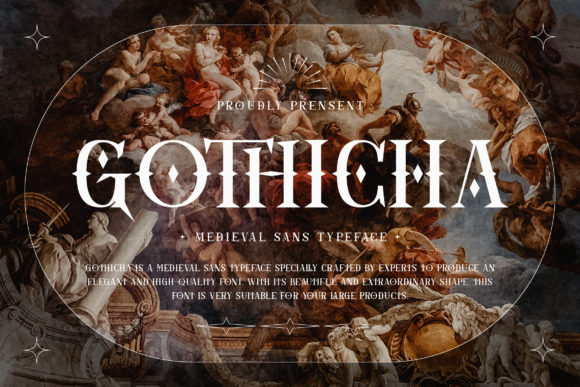
Introducing Gothicha, the best font for business flyers! Created by CreatypeStudio, this bold and victorian styled serif font is a game-changer for anyone looking to elevate their designs to the next level.
Gothicha's unique features are not limited to its stunning design, but also its PUA encoding which allows easy access to all glyphs and swashes. This makes it effortless to add intricate details and personalized touches to your favorite creations.
If you're looking to make a lasting impression on potential customers, Gothicha is the font for you. Its timeless and professional aesthetic is perfect for business flyers, brochures, and advertisements.
Not only will Gothicha capture the attention of your target audience, but it will also showcase your brand's creativity and attention to detail. Don't settle for a boring and forgettable design. With Gothicha, your creations will stand out from the crowd and leave a lasting impression.
Incorporate Gothicha into your designs with confidence and let yourself be amazed by the stunning outcome. Don't miss out on the opportunity to take your designs to the next level with the best font for business flyers - Gothicha.